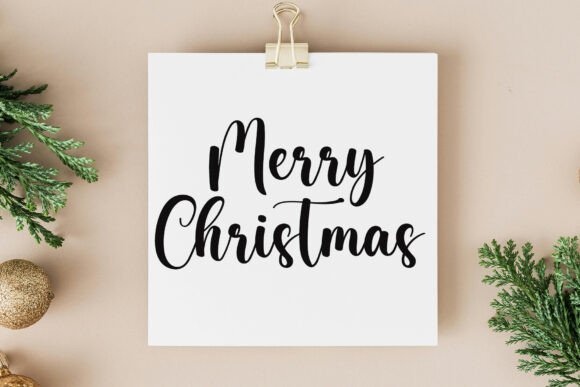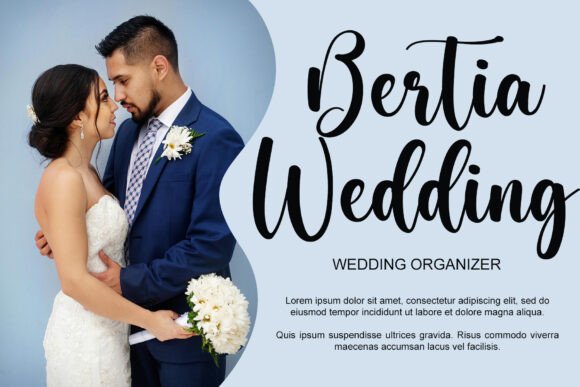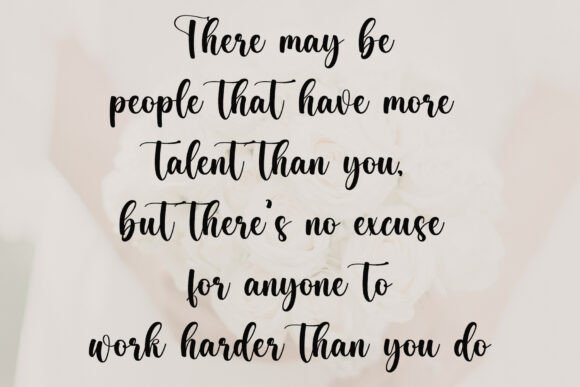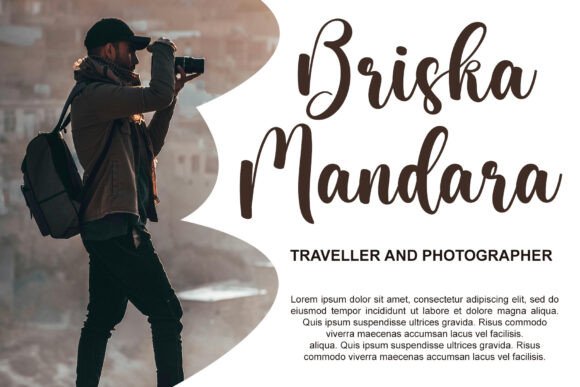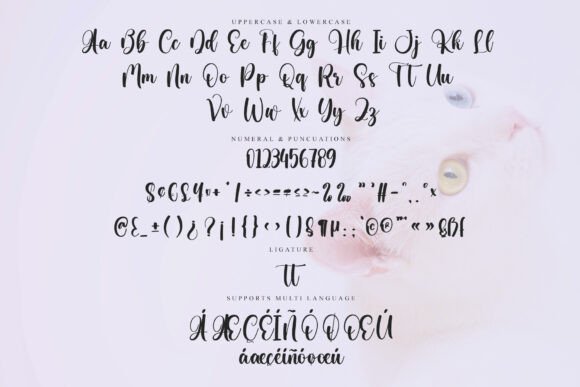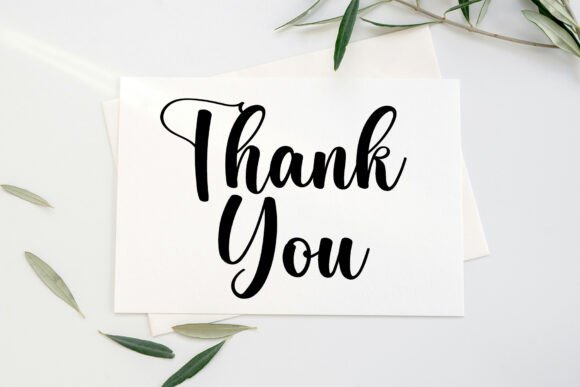
Introducing Another Valentine Font: The Perfect Addition to Your Design Arsenal
Are you tired of using the same old fonts for your designs? Look no further! Another Valentine Font is here to add a touch of modern elegance and whimsy to your creations. This stylish and modern handwritten font is suitable for a wide spectrum of applications, from greeting cards to headlines, branding, and packaging.
A Font that Spreads Happiness
Another Valentine Font is designed to bring a smile to people’s faces. Its unique and playful style is sure to add a happiness touch to each of your creations. Whether you’re designing a romantic greeting card, a fun and quirky brand logo, or a beautiful packaging label, this font is the perfect choice. Its modern and elegant look will make your designs stand out from the crowd and leave a lasting impression on your audience.
Versatility at its Best
Another Valentine Font is an incredibly versatile font that can be used for a wide range of applications. Here are just a few ideas to get you started:
- Greeting cards: Create beautiful and unique greeting cards for Valentine’s Day, birthdays, and other special occasions.
- Headlines: Add a touch of elegance and sophistication to your headlines with this stunning font.
- Branding: Use Another Valentine Font to create a memorable and recognizable brand logo that will set you apart from the competition.
- Packaging: Add a touch of whimsy and fun to your packaging labels with this playful font.
Another Valentine Font is PUA encoded, which means you can access all of the amazing glyphs and ligatures with ease. PUA (Private Use Area) encoding allows designers to access a wide range of special characters and glyphs that are not available in standard fonts. This means you can add an extra layer of creativity and uniqueness to your designs, making them truly stand out.
What You’ll Love About Another Valentine Font
- Unique and playful style: Another Valentine Font has a one-of-a-kind style that will add a touch of modern elegance and whimsy to your designs.
- PUA encoded: Easy access to a wide range of special characters and glyphs.
- Versatile: Suitable for a wide range of applications, from greeting cards to headlines, branding, and packaging.
- Elegant and sophisticated: Adds a touch of elegance and sophistication to your designs.
Tips for Using Another Valentine Font
Here are a few tips for getting the most out of Another Valentine Font:
- Experiment with different sizes and colors: Try out different sizes and colors to see what works best for your design.
- Pair with other fonts: Combine Another Valentine Font with other fonts to create a unique and interesting look.
- Use it for headlines and titles: Another Valentine Font is perfect for headlines and titles, adding a touch of elegance and sophistication to your designs.